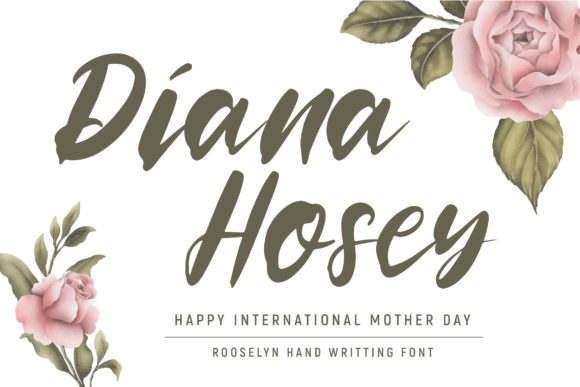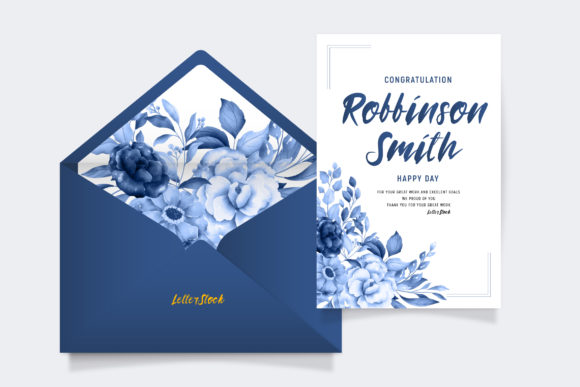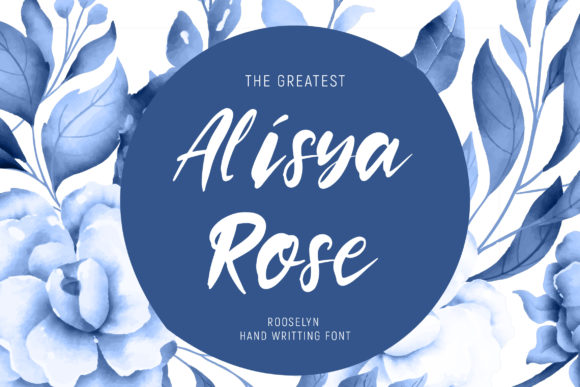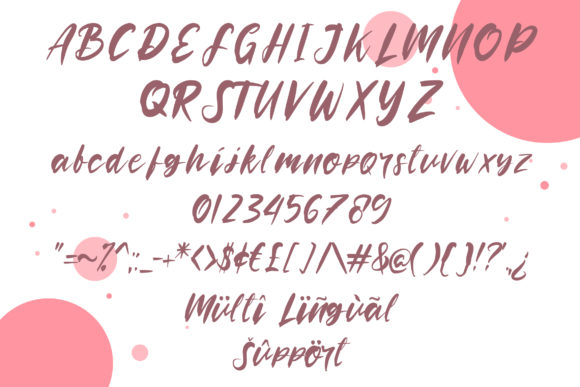
Introduction to Rooselyn Font
Have you ever stared at a blank page, searching for the perfect font to bring your creative project to life? The blank page stares back, taunting you with its emptiness. But what if you could unlock a world of elegance and sophistication with just a single click?
Meet Rooselyn Font, the ultimate design resource that simplifies elegance into one truly outstanding handwritten font. With its high-quality, free download, designers can now elevate a wide range of design projects to the highest level, be it branding, headings, wedding designs, invitations, signatures, logos, labels, and much more!
Whether you’re working on a transparent background or need a font that makes a statement, Rooselyn Font is the perfect choice. Its versatility and sophistication make it a valuable asset for designers, allowing them to create stunning designs that leave a lasting impression.
Key Features of Rooselyn Font
- High-quality, hand-drawn design ideal for creative projects and personal use.
- Transparent background allows for easy layering and customization in design software.
- Includes a range of characters, including uppercase and lowercase letters, numbers, and special characters.
- Designed with a unique, whimsical style that adds a touch of personality to any creative project.
Honest Review: Rooselyn Font
I recently had the chance to work with the Rooselyn Font, and I must say it’s been a game-changer for my creative projects. The font is incredibly versatile and easy to use, making it a great design resource for anyone looking to add a touch of elegance to their work.
The Rooselyn Font features a transparent background, which is perfect for creating a clean and minimalist look in your designs. It’s also available for free download, making it an excellent choice for anyone on a budget or just starting out in the world of design.
- High-quality design that looks great in print and digital formats
- Easy to use and customize for any creative project
- Transparent background for a clean and minimalist look
- Only available in a single style, which may limit its versatility
- May not be suitable for projects that require a bold or playful font
Overall, I’m thoroughly impressed with the Rooselyn Font. It’s a high-quality design resource that’s perfect for anyone looking to add a touch of elegance to their creative projects. With its transparent background and easy-to-use interface, it’s a great choice for designers of all levels.
Tips for Getting the Most Out of Rooselyn Font
Experiment with different font sizes and styles to achieve the desired effect. Use the transparent background feature to create visually appealing designs. Consider pairing Rooselyn Font with other high-quality design resources to elevate your creative project.
Rooselyn Font is ideal for graphic designers, digital artists, and content creators looking to add a unique touch to their designs. It’s perfect for creating eye-catching presentations, social media graphics, and advertisements. The font’s high-quality design and transparent background feature make it a valuable design resource for any creative project.